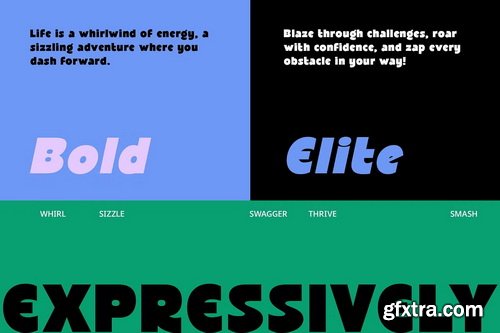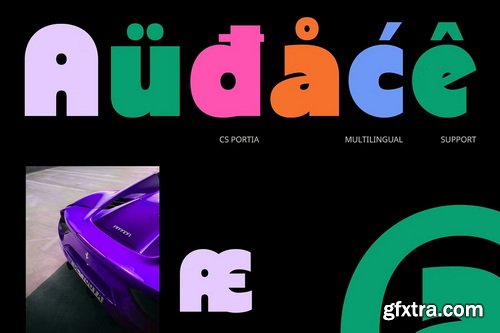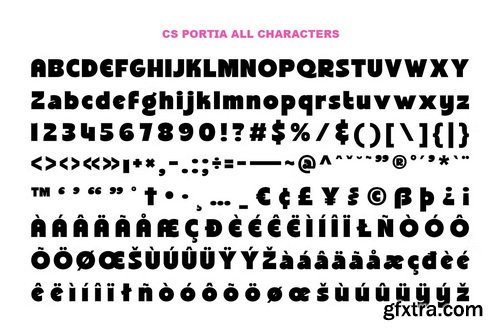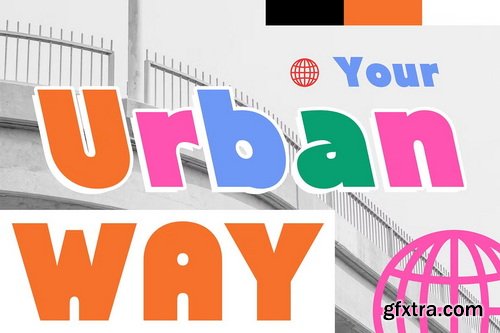
A Bold Sans Serif with a Cheerful Personality CS Portia is a bold sans-serif font designed to bring a sense of fun, energy, and excitement to any project. With its thick, eye-catching letterforms and lively structure, this font is perfect for modern designs that aim to be bold, expressive, and full of character. Smooth Curves and Unique Proportions for a Dynamic Look Featuring rounded shapes, slightly unconventional proportions, and balanced contrast, CS Portia stands out with its dynamic and engaging appearance. The font’s playful structure adds a modern yet friendly touch, making it an excellent choice for projects that need to feel welcoming, youthful, and full of personality.